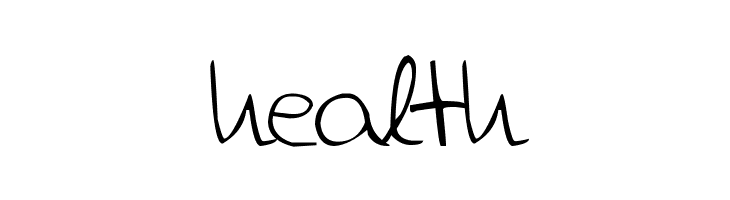
( Al Ikhlas - www.mug7.co.cc )
Barcode-style monospaced font with geometric, vertical bar construction.
( Aku Fadhl - www.behance.net/akufadhl )
A modern, rounded sans-serif font with clean lines and balanced spacing.
( Aktab Studio - creativemarket.com/aktab.studio )
An elegant and flowing script typeface with interconnected letters and ornate flourishes.
( Akos Polgardi - akospolgardi.com/ )
A bold, geometric font with unique cutouts and decorative elements.
( Ajith Rajan - ajithrajan.tk )
A lively handwritten font with fluid, cursive strokes and varied thickness.
( Ajith Rajan - ajithrajan.tk )
A dynamic, angular font with a chiseled, modern appearance.
( Ajith Rajan - ajithrajan.tk )
A modern italic font with smooth, slanted letterforms and a sleek, dynamic appearance.
( Ajith Rajan - ajithrajan.tk )
A bold, playful font with rounded, smooth characters and a dynamic slant.
( Ajith Rajan - ajithrajan.tk )
A bold, artistic font with layered strokes and a dynamic, textured appearance.
( Aida García - www.aidascrap.blogspot.com )
A playful, handwritten font with rounded, irregular characters.